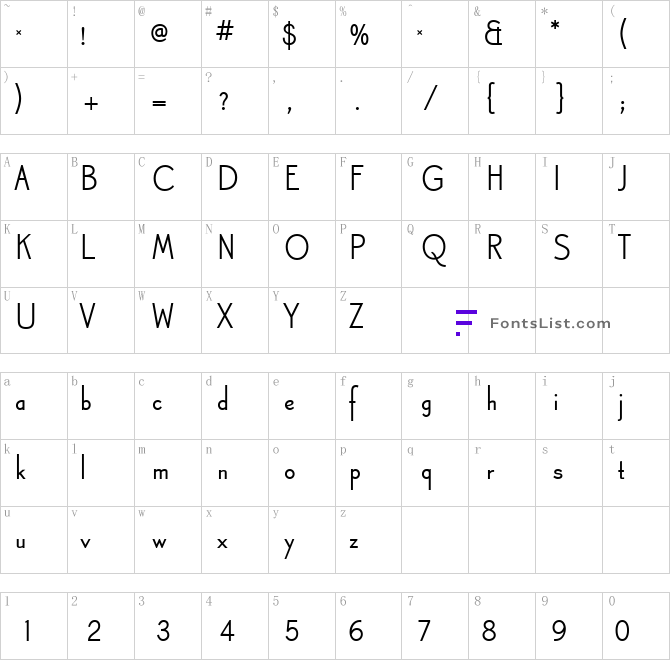
- Font Name:Canterbury Sans RR
Canterbury-Sans-RR-Bold.ttf is a very beautiful artistic font, Canterbury-Sans-RR-Bold.ttf is widely used in the design and printing of various books and pictures,Canterbury-Sans-RR-Bold.ttf has a strong visual impact,Canterbury-Sans-RR-Bold.ttf is a commonly used font in newspapers, magazines and books, and is used in posters, e-commerce Poster design, store design, logo design, font design and other fields.Canterbury-Sans-RR-Bold.